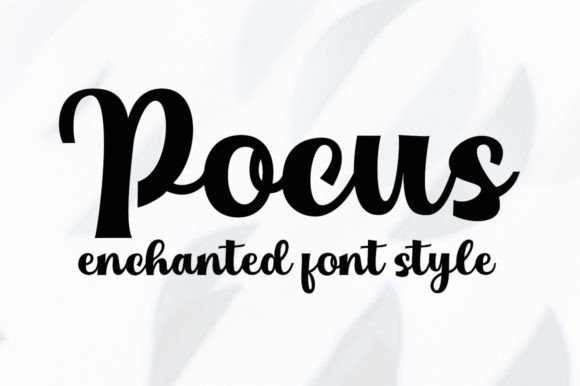
**Unleash the Enchantment of Pocus Font: A Stroke of Elegance for Your Creative Expressions**
In the realm of digital artistry, fonts are the unsung heroes, the invisible threads that weave words into visual masterpieces. They hold the power to transform ordinary text into captivating expressions, evoking emotions, setting moods, and telling stories.
Introducing Pocus Font, a script font family that embodies charm, elegance, and a touch of whimsy. Created by the talented designers at genesislabstudio, Pocus is a versatile work of art that will add a personal touch to your creative projects, leaving an unforgettable impression on your audience.
**A Symphony of Styles for Every Occasion**
With its intricate strokes and delicate curves, Pocus Font exudes a timeless beauty that complements a wide range of design aesthetics. Whether you're crafting elegant wedding invitations, heartfelt thank-you cards, or eye-catching quotes, Pocus will elevate your words with a touch of sophistication.
Its versatility extends beyond personal correspondence, making it an ideal choice for business branding and marketing materials. Design captivating logos, stylish business cards, and promotional flyers that speak volumes about your brand's personality. Pocus Font's ability to transform ordinary text into captivating visuals will make your designs stand out from the crowd.
**The Perfect Canvas for Your Creative Vision**
Pocus Font is not just a collection of letters; it's a blank canvas waiting to be filled with your creativity. Its handwritten style invites you to add your unique touch, making each project a reflection of your individuality.
Imagine your words dancing across the page in Pocus Font's graceful script, carrying the weight of your emotions and the depth of your thoughts. From heartfelt love letters to inspiring business presentations, Pocus Font will become your trusted companion, translating your ideas into visually stunning masterpieces.
**A Font that Speaks to the Heart**
In a world saturated with digital noise, it's the personal touches that truly resonate with audiences. Pocus Font's handwritten style has an innate ability to connect with viewers on an emotional level, creating a sense of intimacy and authenticity.
Use Pocus Font to design wedding invitations that capture the joy and excitement of your special day. Create thank-you cards that express your gratitude with heartfelt sincerity. Design greeting cards that warm the hearts of your loved ones. With Pocus Font, your words will carry a weight and emotional depth that will leave a lasting impression.
**Experience the Magic of Pocus Font Today**
Pocus Font is more than just a font; it's a gateway to a world of creative possibilities. Its charm, elegance, and versatility make it the perfect choice for designers, artists, and creative professionals seeking to elevate their work.